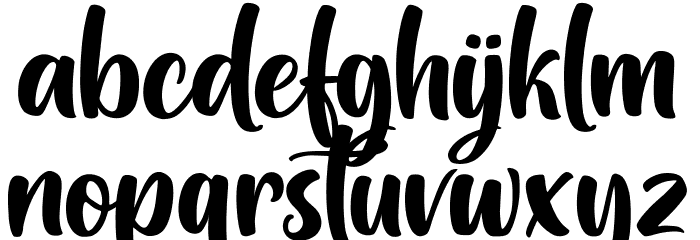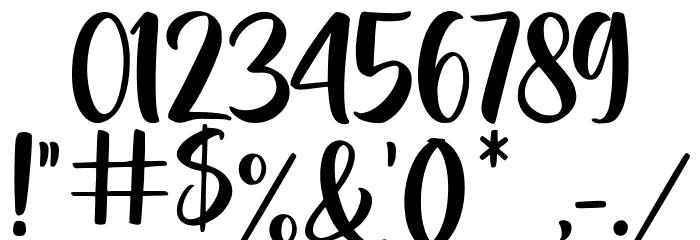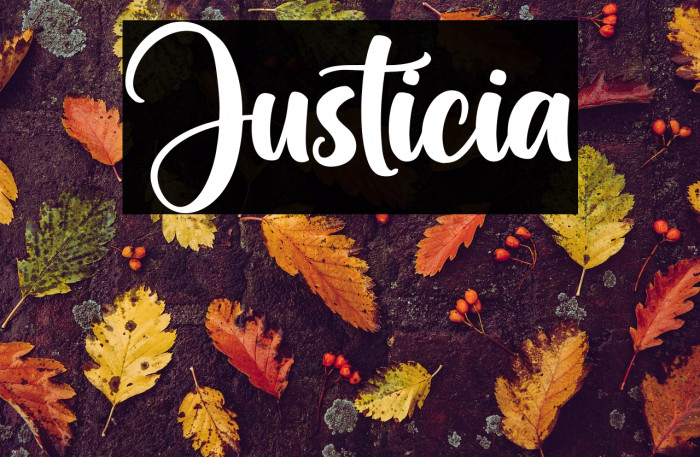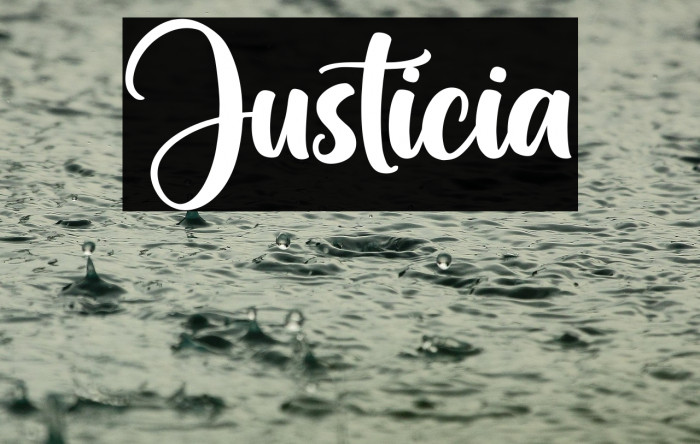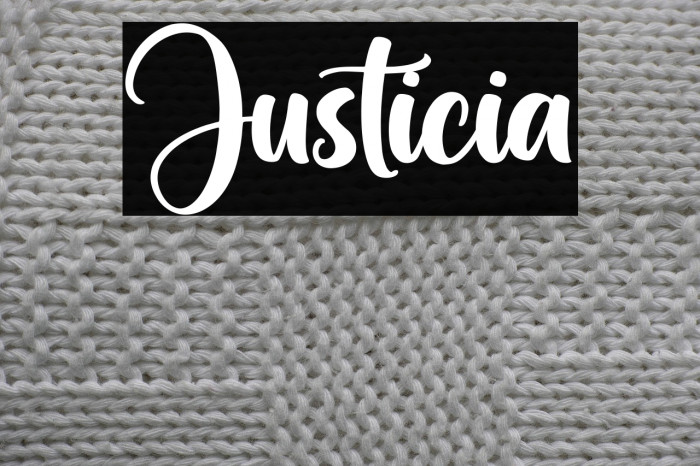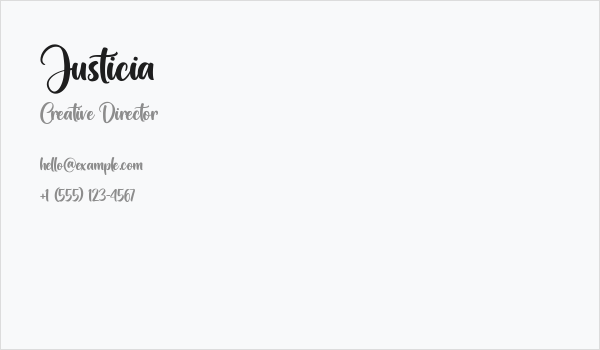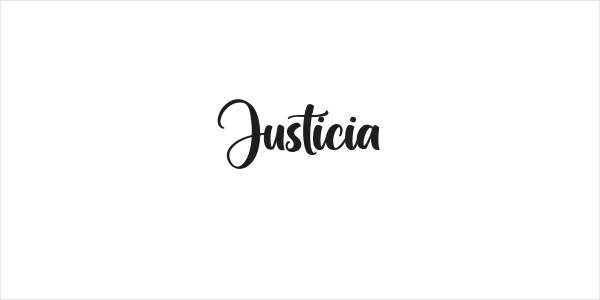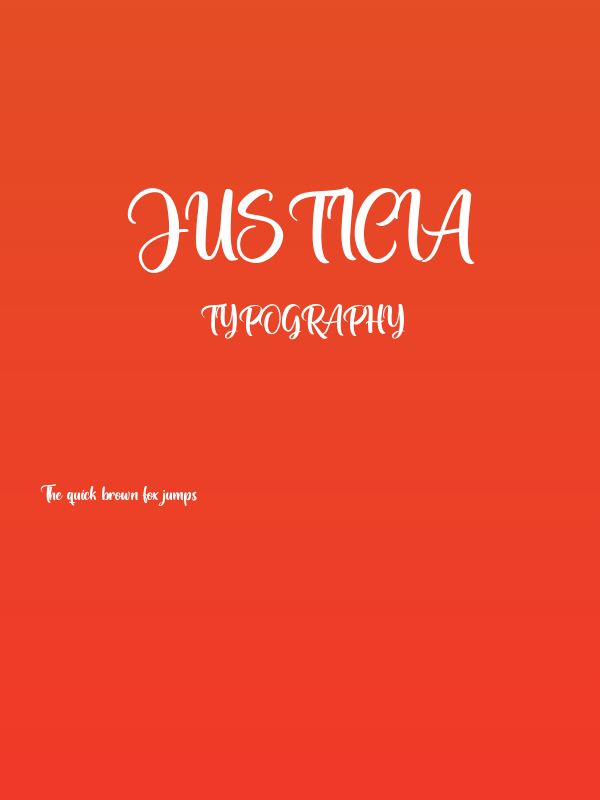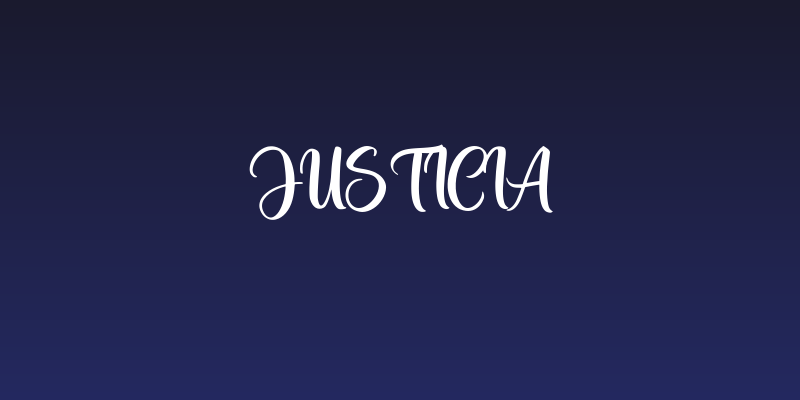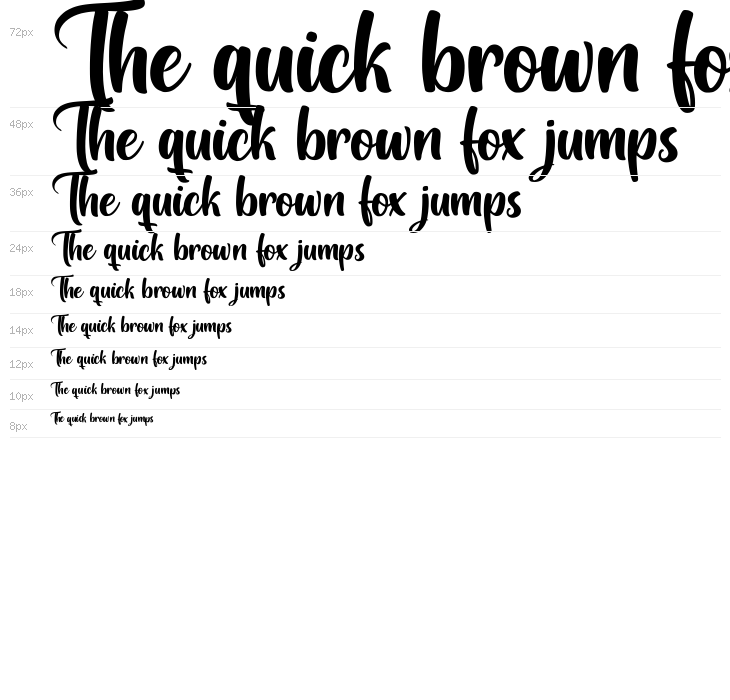
Justicia Font
This font features a bold and expressive script style with a hand-drawn appearance. The letters are characterized by their fluid, cursive strokes and varying thickness, giving it a dynamic and lively feel. The uppercase letters are elegantly looped and connected, while the lowercase letters maintain a consistent flow, enhancing readability. The numerals and special characters complement the overall style, maintaining the same bold and artistic flair. This font is perfect for projects that require a personal touch or a creative, artistic vibe.
A bold, expressive script font with a hand-drawn, cursive style.
- Proposed Projects: Ideal for branding, invitations, greeting cards, posters, and social media graphics.
- Use Case: Logos, Headlines, Invitations